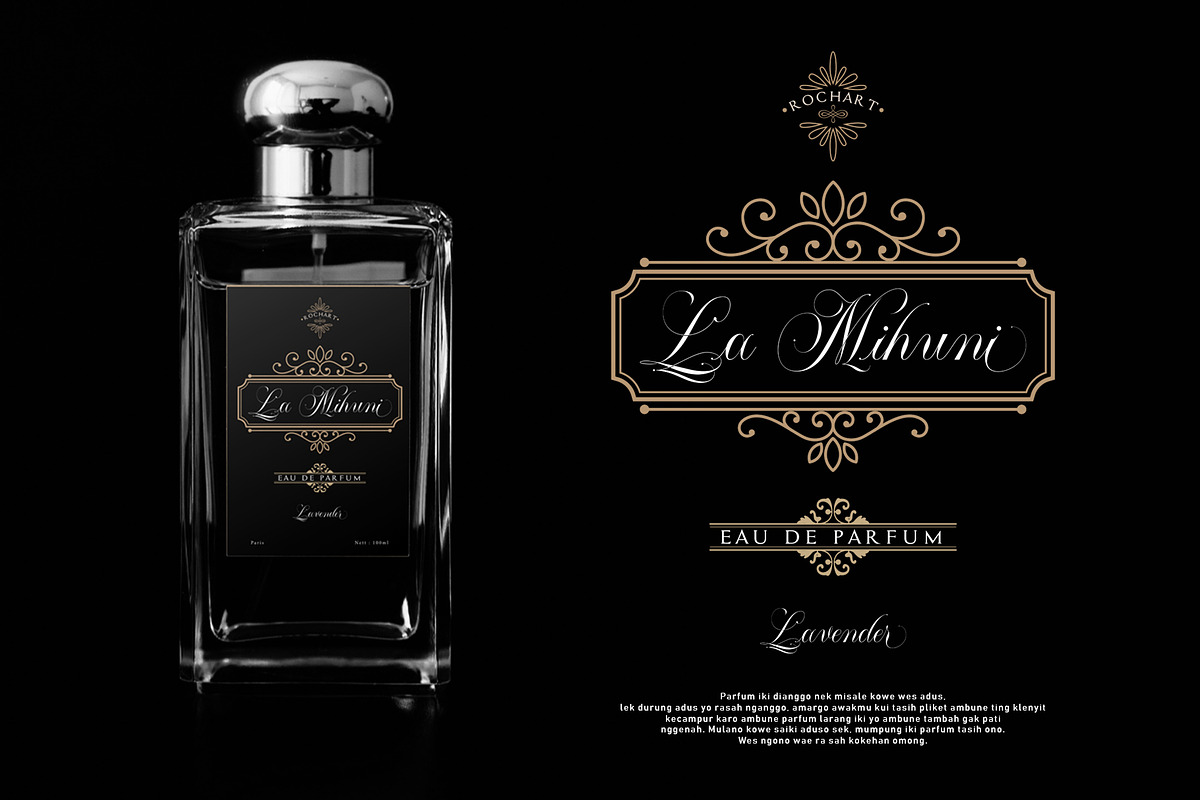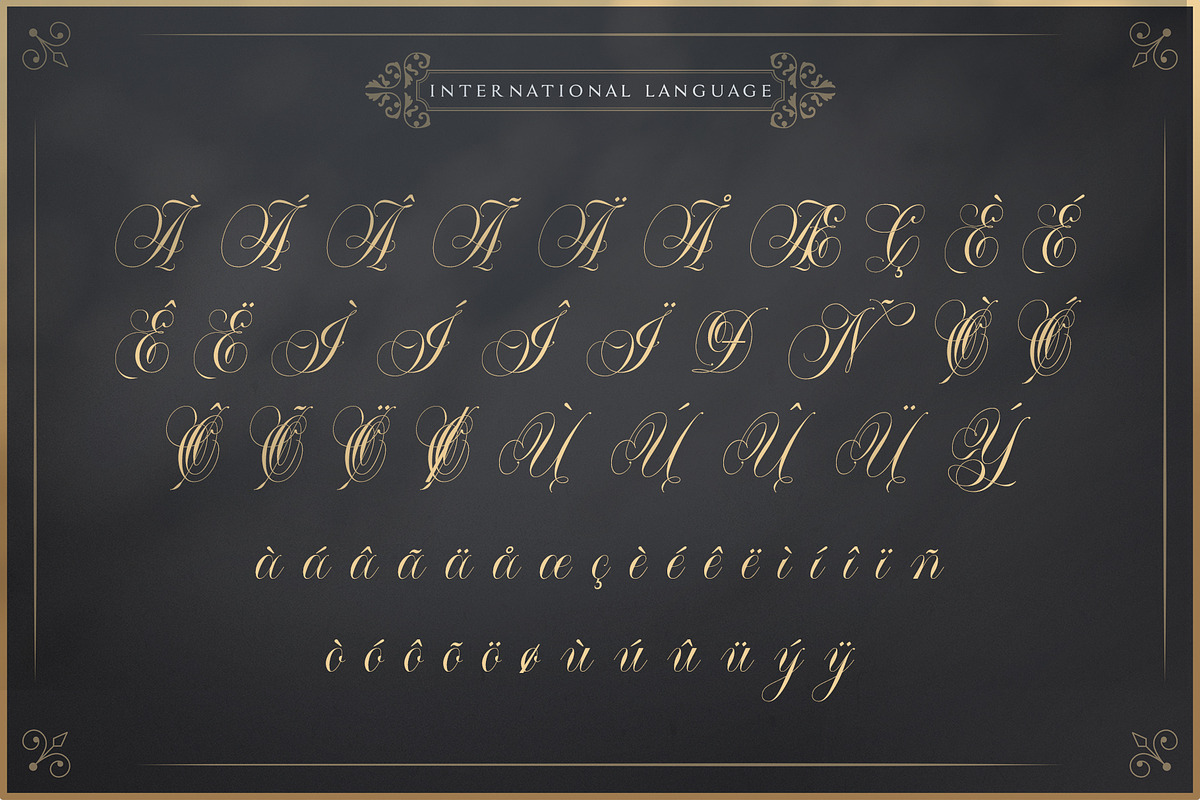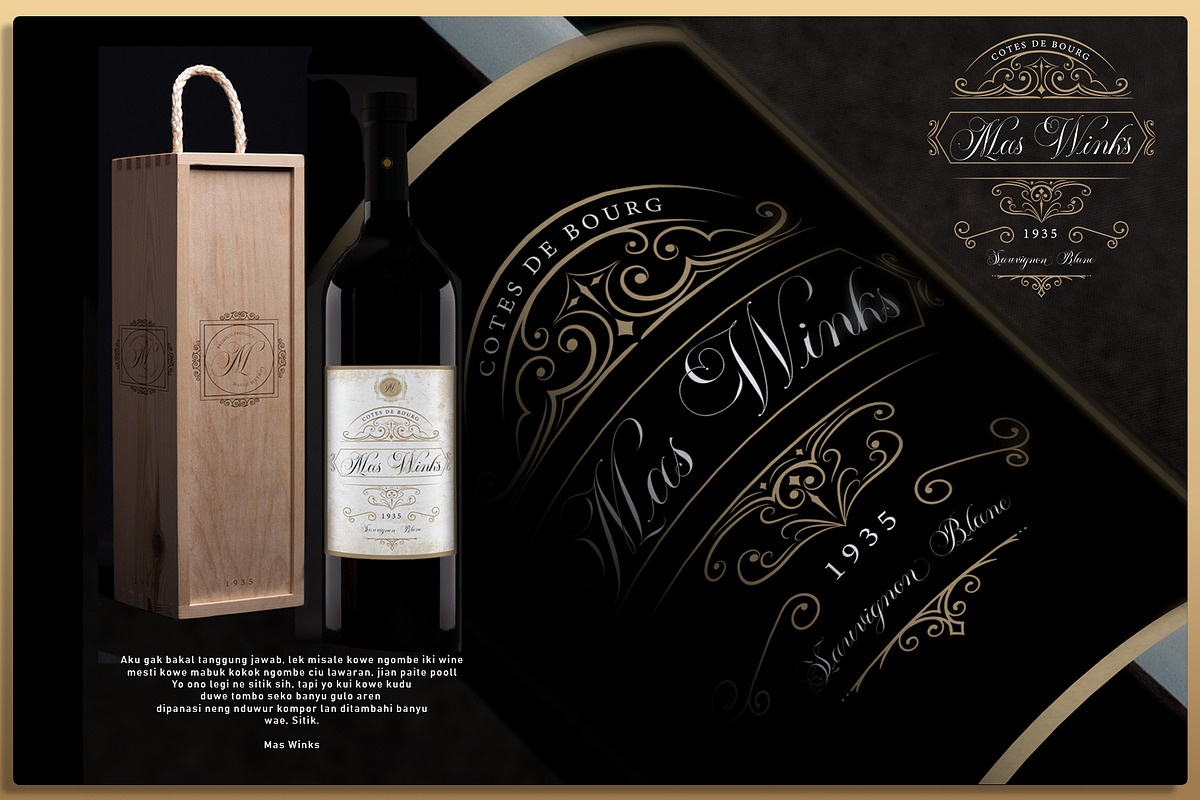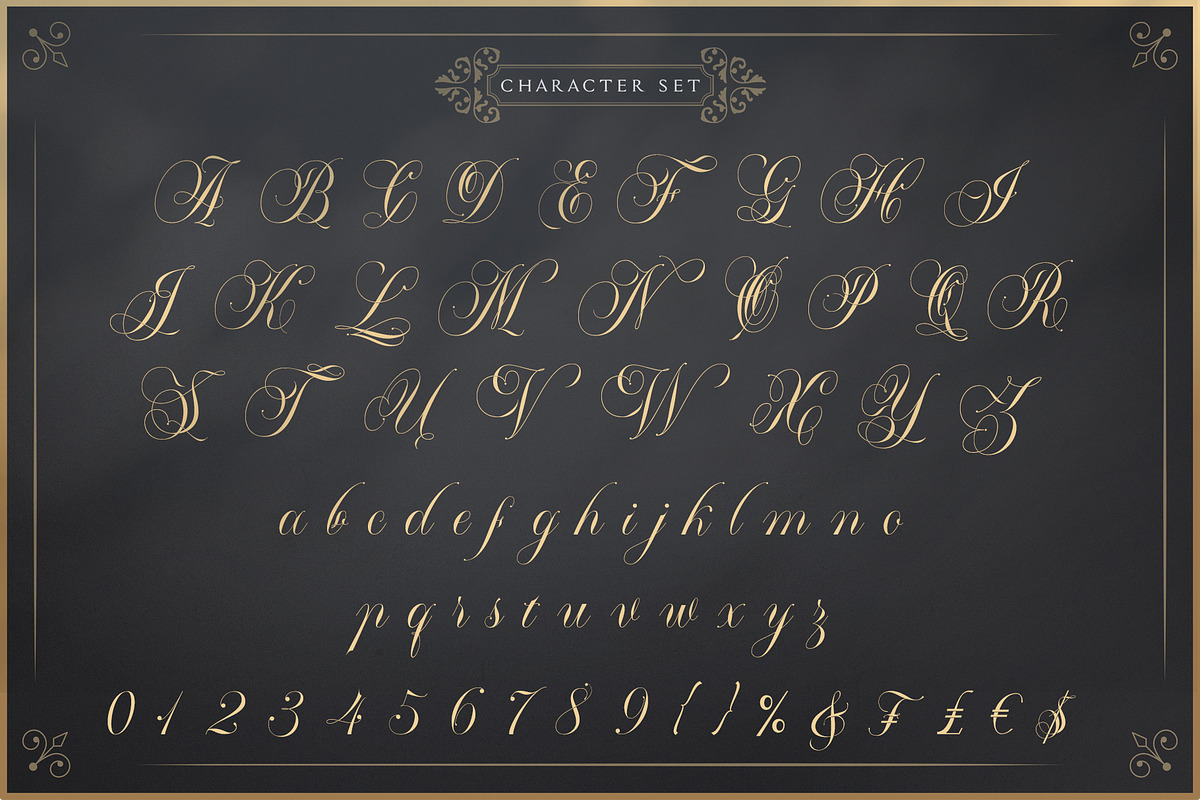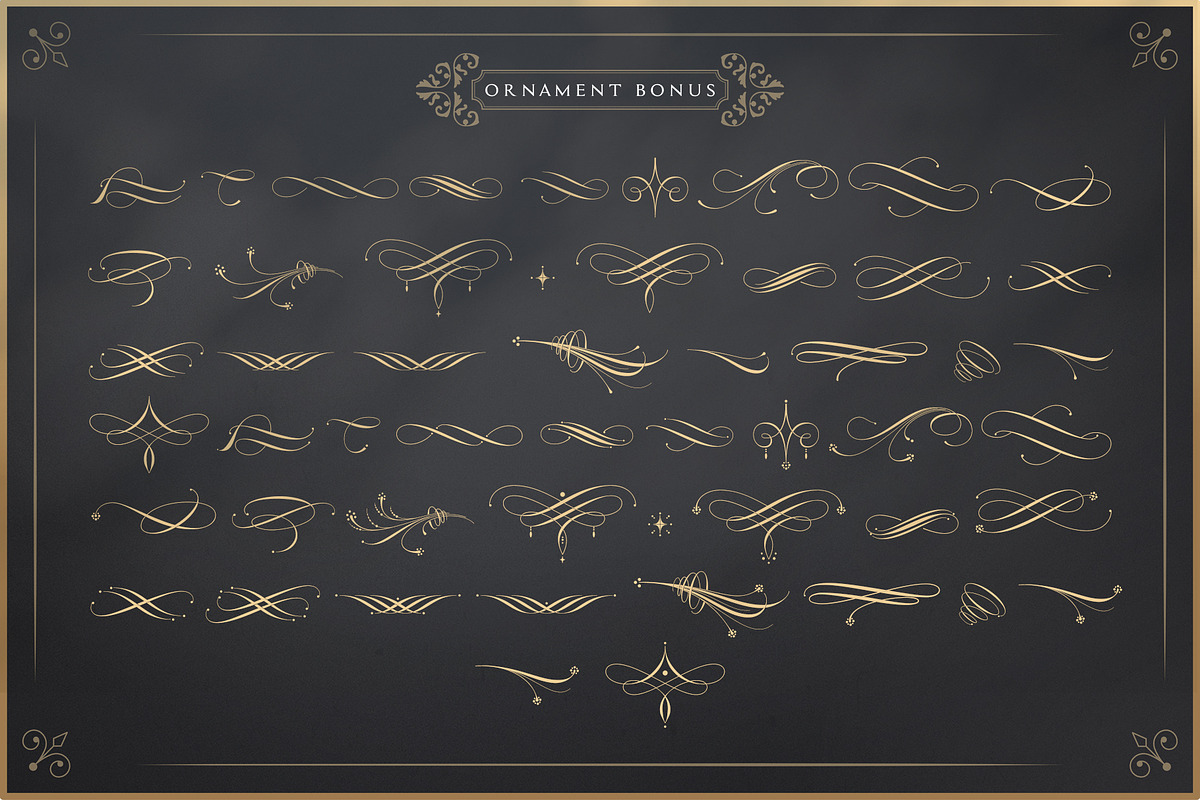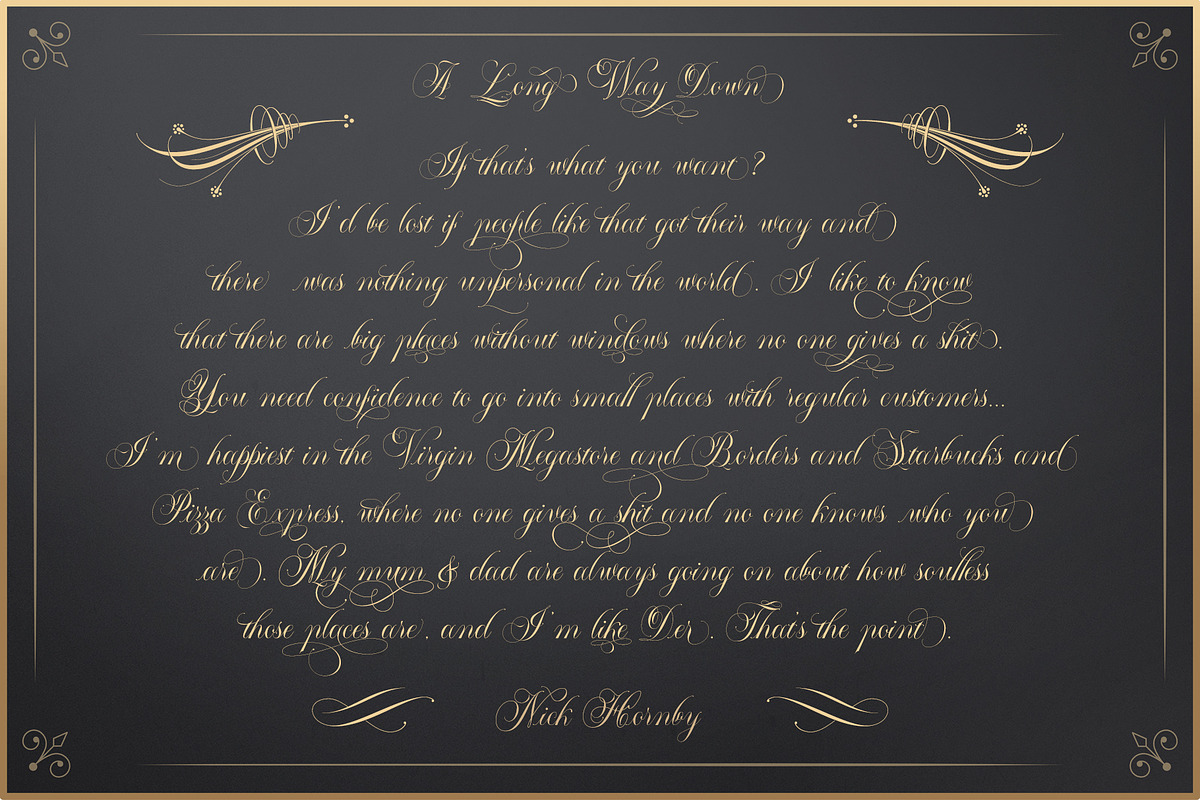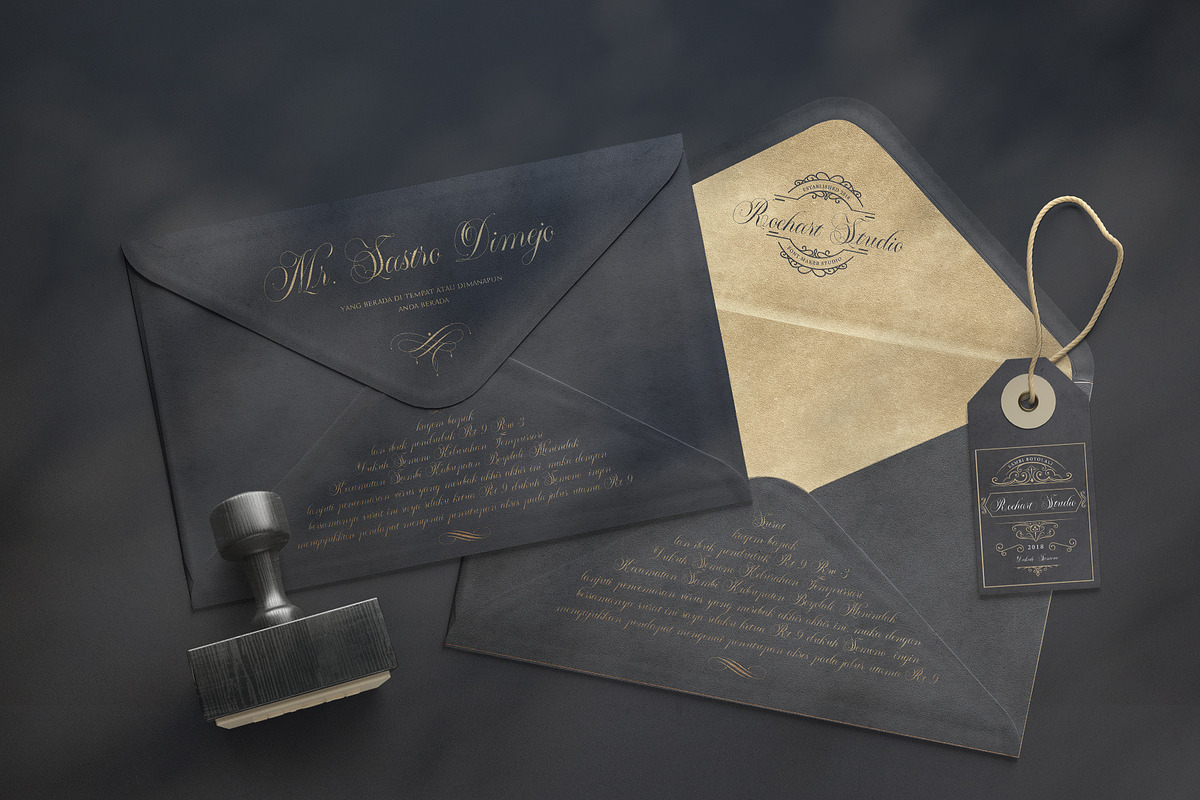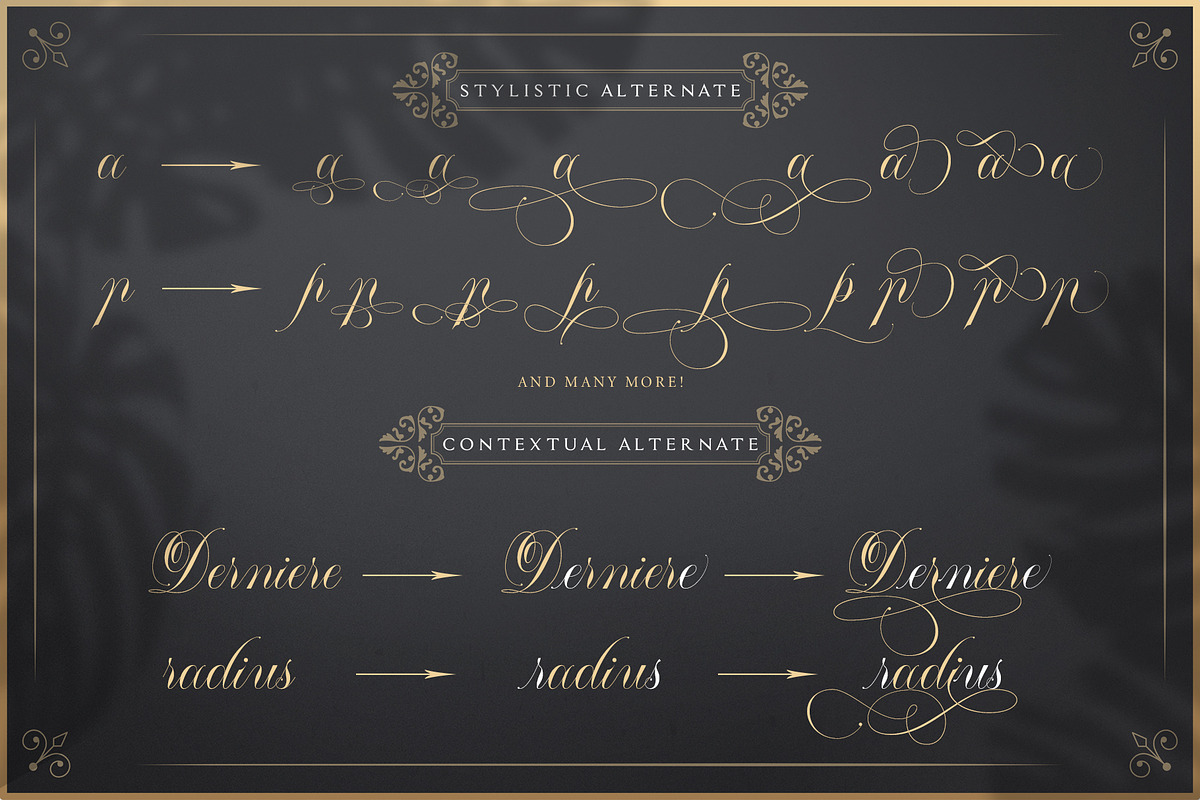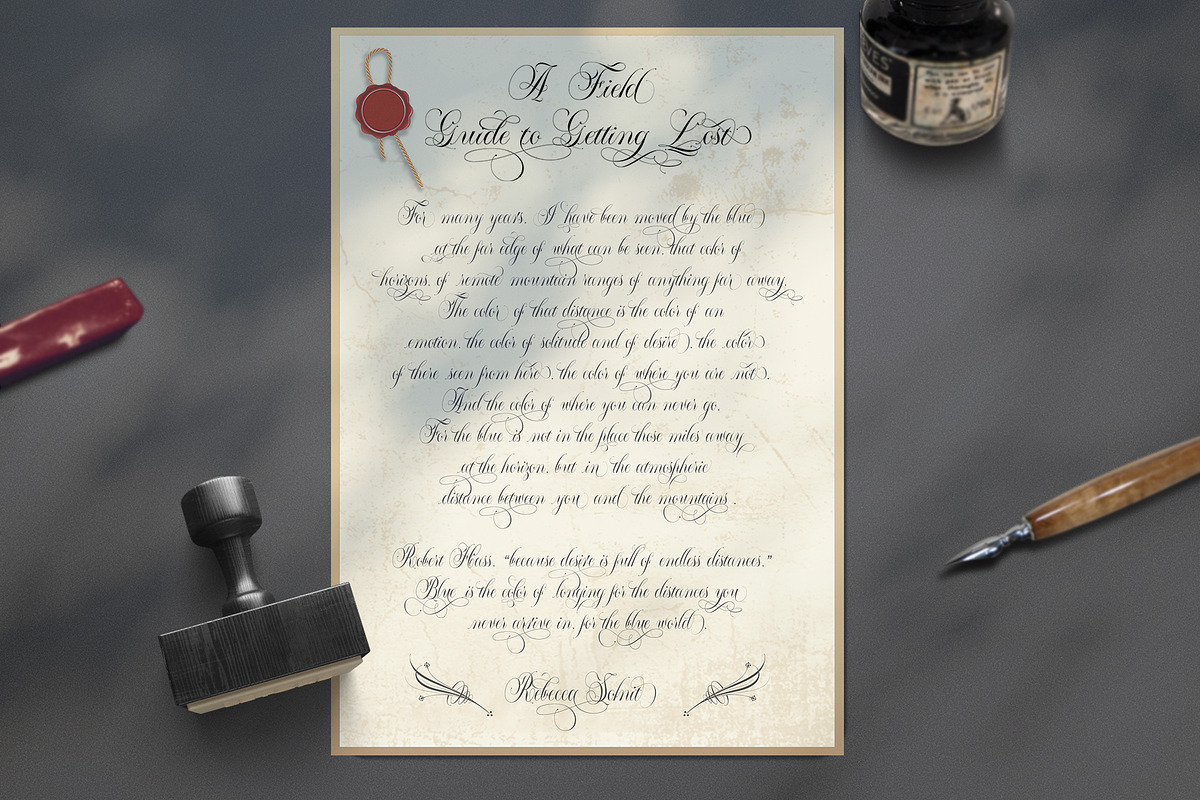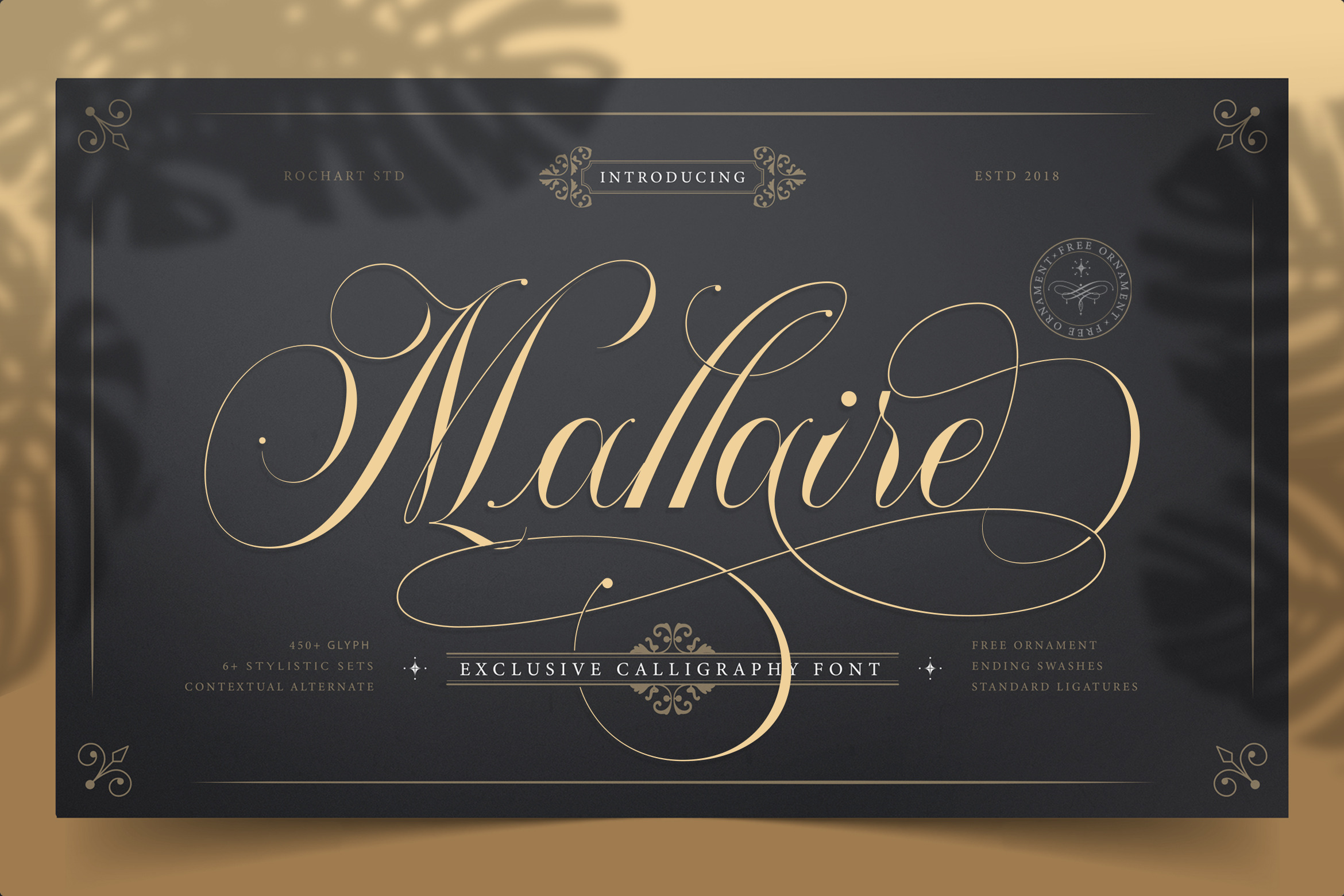
Valentine Exclusive Font || Mallaire
The Mallaire calligraphy is calligraphy font with a exclusive style and a touch of classic, inspired by the handwriting of ancient manuscripts. Carefully designed to work together in harmony that makes it very suitable for wedding media, book covers, greeting cards, logos, branding, business cards and certificates, even for any design work that requires a classic, formal or luxurious.
This font contain of Uppercase, Lowercase, Number, Symbol, Punctuation, also support multilingual and already PUA encoded.